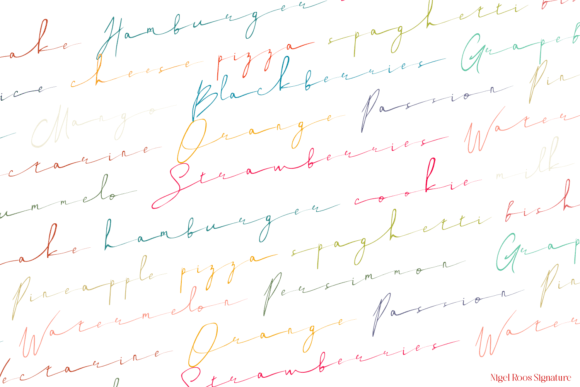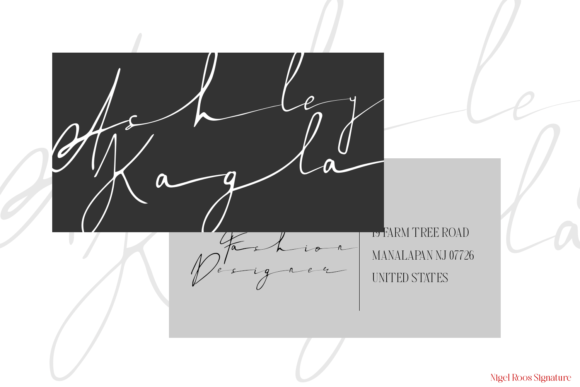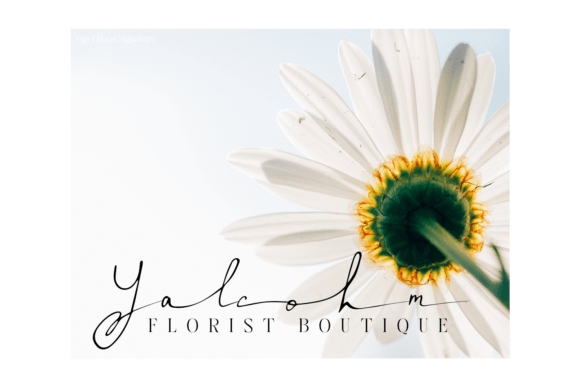
Introduction to Nigel Roos Font
Have you ever found yourself staring at a blank canvas, trying to come up with the perfect touch to elevate your design project? It’s that moment of creative hesitation, when you wish you had a little extra something to make your design truly stand out. For designers, finding the perfect finishing touch can be the difference between a good design and a great one.
Enter the Nigel Roos Font, a high-quality, realistic signature font that’s about to become your new design best friend. With two alternative versions, each featuring extra swashes and over 140 ligatures, this font is the perfect tool to add a touch of handmade authenticity to your creative project. Whether you’re working on a design resource for a client or simply want to elevate your personal projects, the Nigel Roos Font is an invaluable asset.
Nigel Roos Font
- High-quality design resource ideal for creative projects, offering a professional look and feel.
- Designed with precision and attention to detail, making it a valuable addition to any design resource library.
Honest Review: Nigel Roos Font
I recently came across the Nigel Roos Font, a design resource that caught my attention with its elegant and sophisticated feel. The font’s high quality is evident in its crisp lines and smooth curves, making it perfect for creative projects that require a touch of refinement.
One of the standout features of this font is its versatility. It can be used for both print and digital projects, and its transparent background makes it easy to integrate with any design.
Here are some of the things that work well for me:
- ✨ Elegant and sophisticated feel
- ✨ High quality and crisp lines
- ✨ Versatile and suitable for various design projects
However, I do have some limitations to note:
- ⚠️ Limited font weights and styles available
- ⚠️ May not be suitable for projects that require a bold or dramatic font
Overall, I’m impressed with the Nigel Roos Font. Its high quality and versatility make it a valuable addition to any designer’s toolkit. While it may have some limitations, I believe it’s worth considering for creative projects that require a touch of sophistication.
Nigel Roos Font
Tips for Getting the Most Out of the Nigel Roos Font
Use the Nigel Roos Font on a transparent background to create a modern and sleek design. Experiment with different font sizes and styles to add visual interest to your design. Use the font in combination with other high-quality design resources to create a cohesive and professional-looking design.
The Nigel Roos Font is a versatile design resource that can be used in a variety of creative projects, including logos, brochures, and business cards. The font’s modern and sleek design makes it perfect for use in tech and fashion branding, as well as in creative industries such as graphic design and photography.